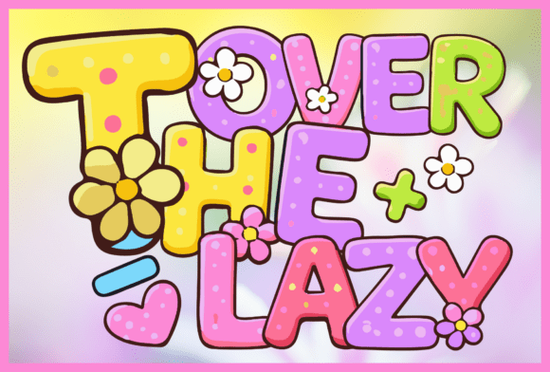
If you're looking for a cheerful, spring-inspired font that works well for kids’ projects, classroom printables, or light-hearted craft designs, Over the Lazy Font is a thoughtful choice. It’s not just another decorative typeface it’s designed with readability and warmth in mind, using soft pastel tones, bold outlines, and gentle floral accents that feel handmade rather than digital. You’ll find each letter decorated with tiny flowers, hearts, and playful shapes subtle enough to charm without overwhelming your layout.
Unlike many overly ornate fonts, Over the Lazy Font balances decoration with function. The bubble-letter structure gives it visual weight at small sizes, while the clean spacing keeps words legible even when printed on stickers, tote bags, or flashcards. It’s especially helpful if you’re designing for younger audiences: teachers use it for name tags and reading posters, crafters choose it for Easter cards and nursery wall art, and print-on-demand sellers apply it to mugs and baby onesies where friendliness matters more than formality.
Because it’s built with consistent stroke width and generous x-height, it holds up well across formats from SVG files for Cricut and Silhouette machines to high-res PNGs for digital classrooms. And since every character includes the same spring-themed embellishments (no missing hearts or mismatched petals), your designs stay cohesive whether you’re typing a full sentence or just a single word like “bloom” or “hello.”
It shares some of the joyful energy of the Cute Dot Duo Font, but leans more into seasonal charm than minimalist dot patterns. If you’ve used the Embroidery Stitch Font, you’ll notice Over the Lazy Font has less texture and more color variety making it better suited for screen-based or brightly printed work rather than stitched embroidery previews.
One practical difference: Over the Lazy Font comes with full uppercase and lowercase letters, numbers, and basic punctuation so you can build full sentences, not just headlines. That’s useful if you’re making editable Canva templates or printable planners where flexibility matters.
- Classroom resources: Spelling lists, behavior charts, and themed bulletin board headers (especially for spring units or garden science lessons).
- Craft supplies: Vinyl cut files for wooden signs, iron-on transfers for t-shirts, and hand-lettered-style greeting cards.
- Small business branding: Logo accents for bakeries, flower shops, or children’s boutiques not as a primary logo font, but as a friendly secondary typeface for taglines or packaging details.
- Digital products: Editable PDFs sold on Etsy or Creative Market, where buyers appreciate clear, on-brand typography they can personalize without design skills.
You’ll also find it pairs nicely with simple sans-serifs (like Montserrat or Nunito) for contrast using Over the Lazy Font for headings and a neutral font for body text keeps things balanced and accessible. Just avoid pairing it with other highly decorated fonts; two busy typefaces compete instead of complement.
For those new to fonts, keep in mind: decorative fonts like this shine best at larger sizes (24pt and up for print, 48px+ for web). Using it too small say, for fine print or footnotes can reduce clarity. That’s true for most illustrated fonts, not just this one.
If you’d like to see how others are using it, check out real examples on Creative Fabrica using the search term Over the Lazy Font. You’ll find bundles with matching clipart, coordinating patterns, and even ready-to-use social media templates helpful if you’re short on time but want cohesive visuals.
Before you download, here’s a quick checklist:
- ✅ Confirm your project benefits from a warm, spring-themed aesthetic not formal or tech-focused.
- ✅ Check that your software supports OpenType features if you plan to use alternate glyphs.
- ✅ Preview the full character set (especially punctuation and numbers) to ensure it meets your needs.
- ✅ Remember to install the font to your system first don’t try to use it directly from the downloaded folder.